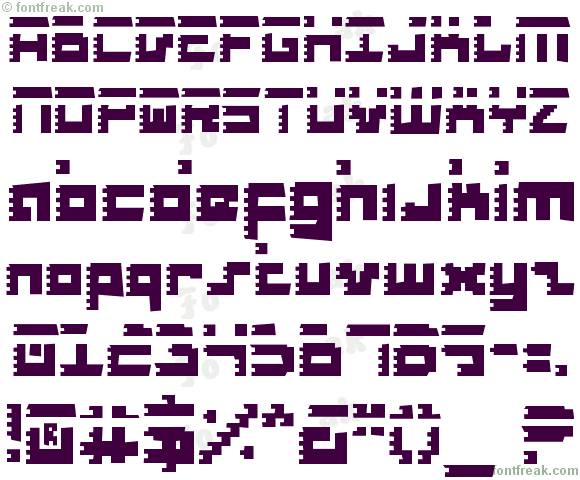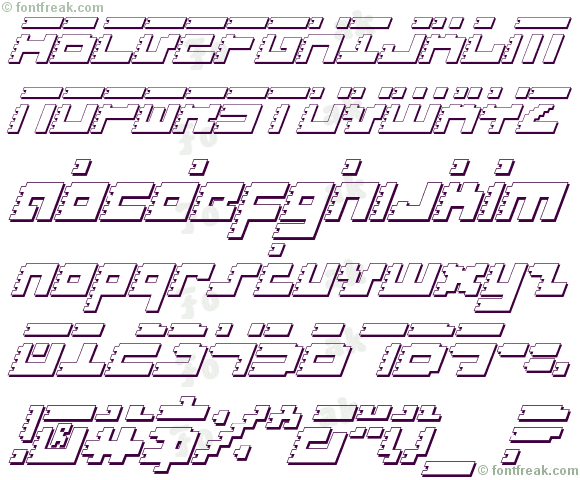
Roid Rage Condensed
About Roid Rage Condensed
Roid Rage Condensed is a distinctive display font designed by Daniel Zadorozny in 2002, categorized as a decorative typeface. This font features a unique, bold design characterized by its condensed letterforms, giving it a striking presence that can’t be overlooked. The stroke weight is heavy, providing a strong visual impact, while the rough edges and shadow effects add a sense of dynamism and energy. The overall spacing is tight, which enhances the font's condensed nature and makes it ideal for eye-catching headlines and titles.
The Roid Rage Condensed font is perfect for a variety of applications. Its energetic style makes it an excellent choice for movie posters, particularly those in the action or thriller genres, where it can convey a sense of excitement. Additionally, it can be effectively used in promotional materials for sports events, music festivals, or adrenaline-fueled brands. Graphic designers may find it suitable for creating bold logos or branding elements that demand attention. Restaurant menus seeking a modern, edgy feel can also benefit from its unique aesthetic.
What sets Roid Rage Condensed apart is its ability to blend playful creativity with a rugged, urban edge. Its distinctive look not only captures attention but also evokes a sense of movement and energy, making it an excellent choice for projects that aim to stand out. For those interested in experimenting with this dynamic typeface, the Roid Rage Condensed font free download is readily available for use in your creative endeavors.